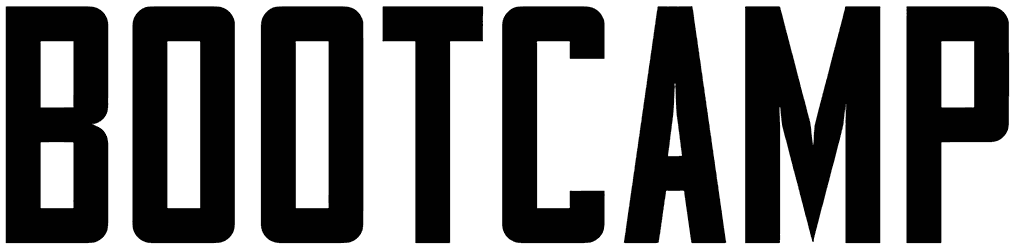
Blue Fonte Sans Font
Blue Fonte Sans is a smart, modern, and fashionable sans serif font, that offers thick bold fine characters for you to utilize and create one amazing typography! By choosing this font the outcome will be a text that is informal, friendly, and very approachable.
Capitalized A to Z letters, numbers, and punctuations are available but it dis-includes lower case letters. Blue Fonte Sans is best for books, headings, apps, websites, branding, or wherever you would like a perfect design.
Designed by: Khurasan